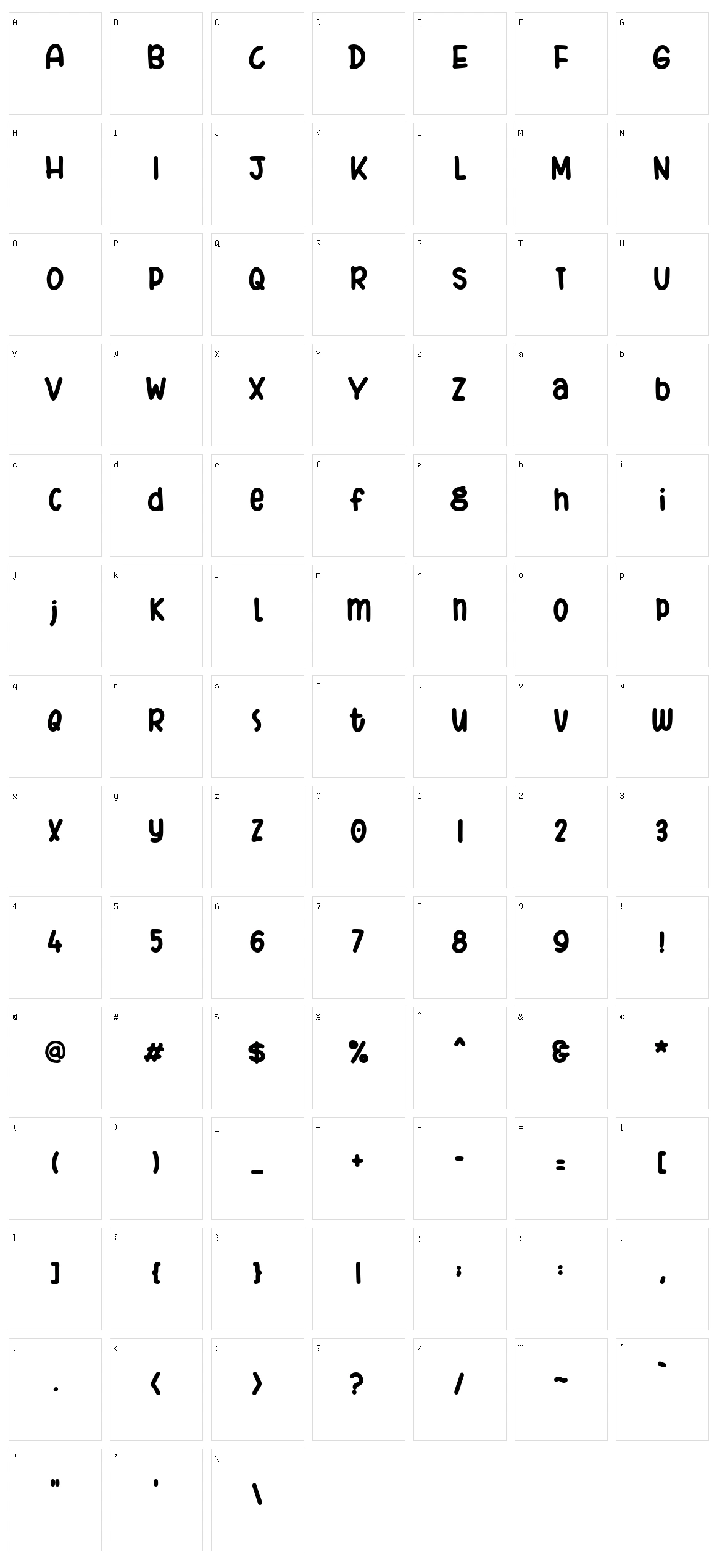
The free font Bashirah is carefully designed by Siti Nurjannah, showcasing a thoughtful balance of creativity and usability and falls under the Cartoon font style. When you download the ZIP file, it contains only 32.15 KB of font files, making it lightweight and quick to download. Please review the license details below to understand permitted usage and distribution rights. If license information is not available, we recommend using this font for personal projects only or contacting the author directly for commercial usage permissions.